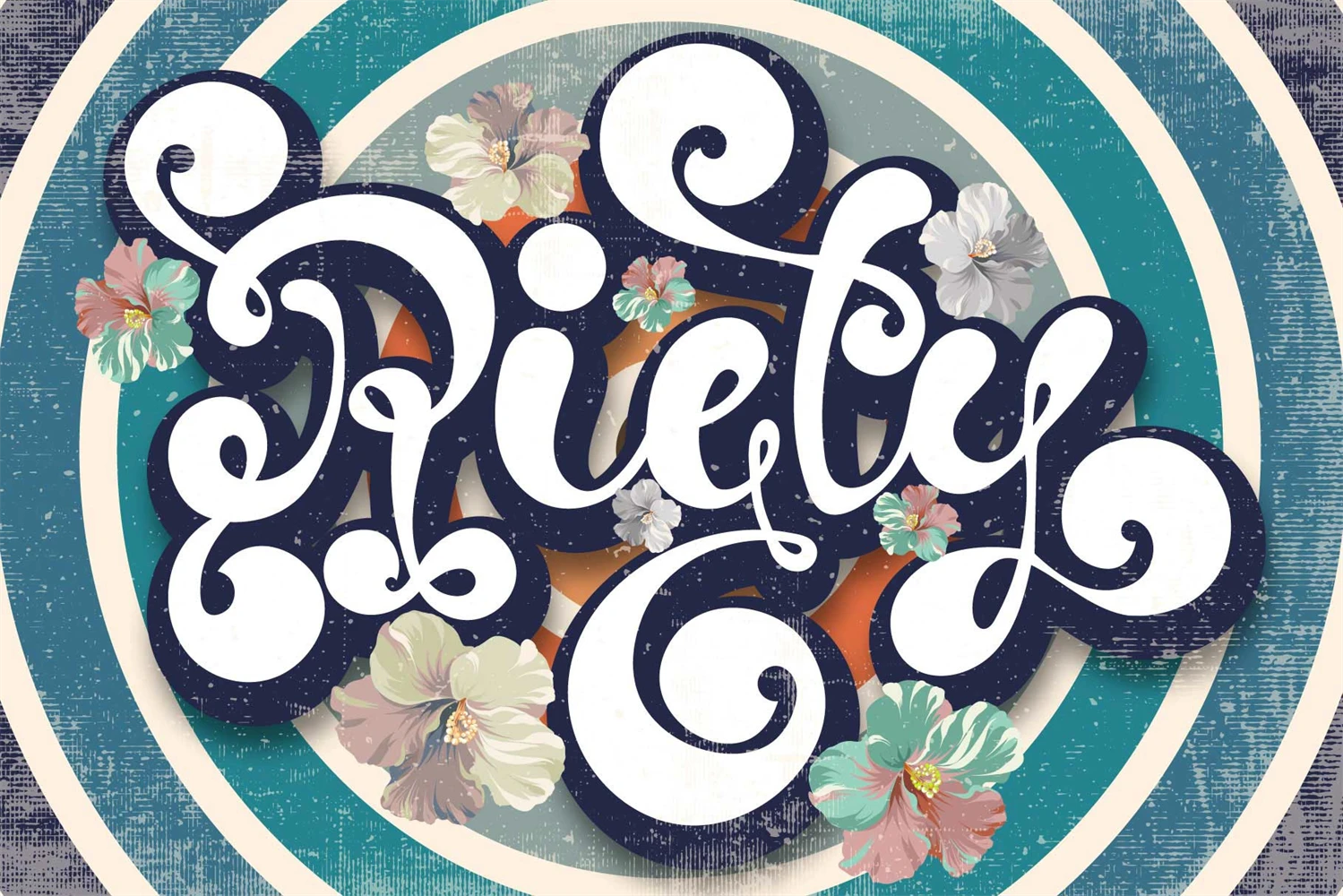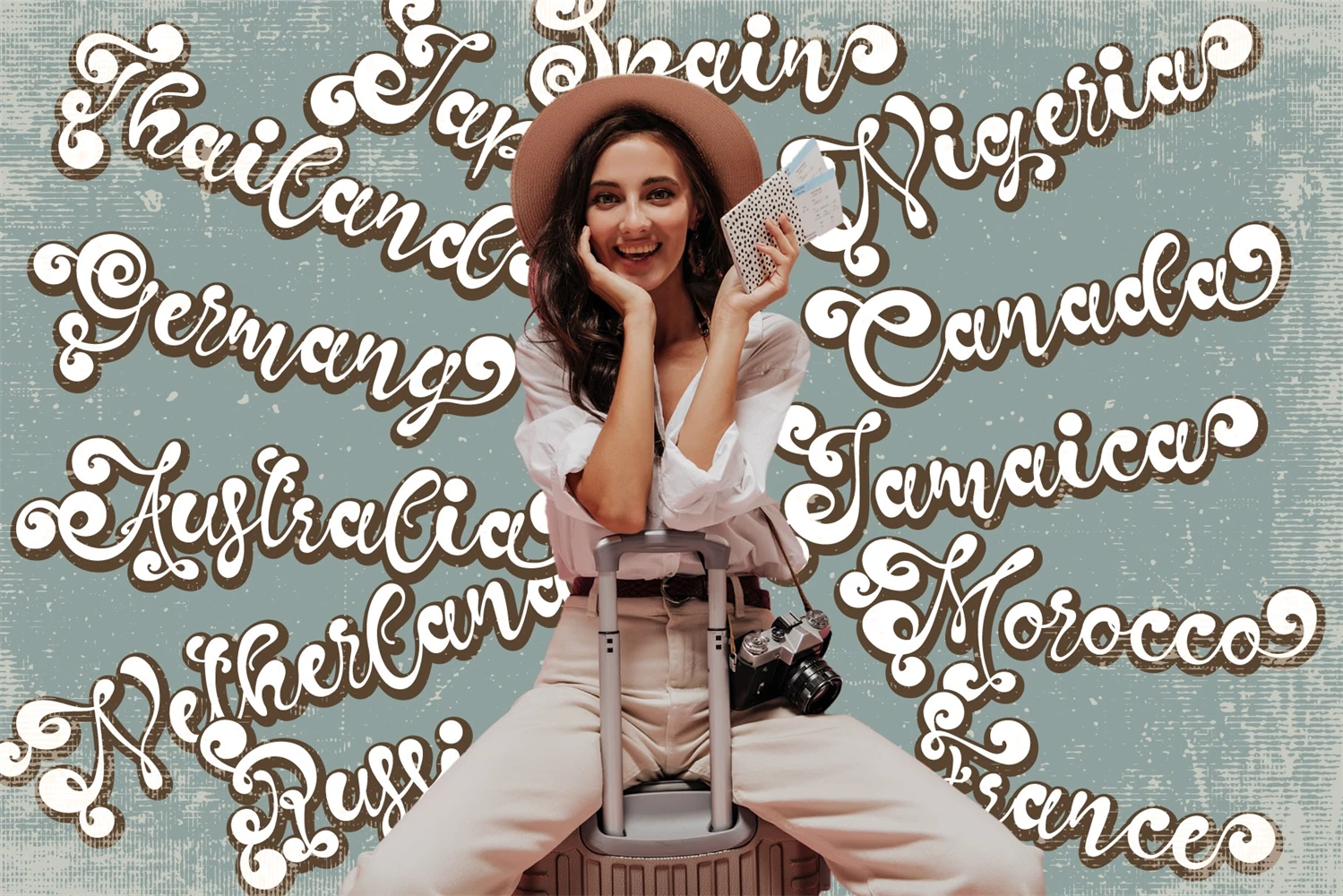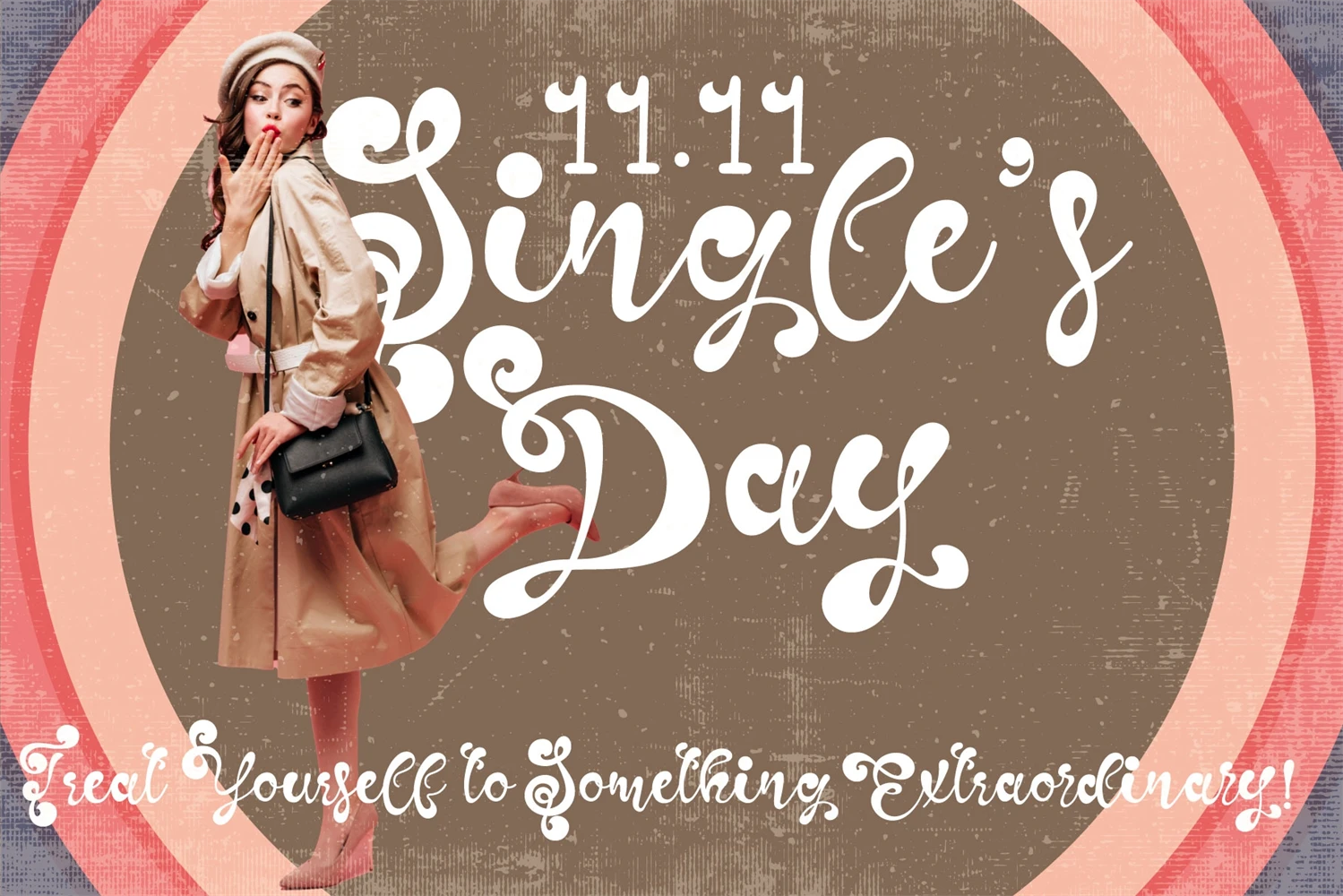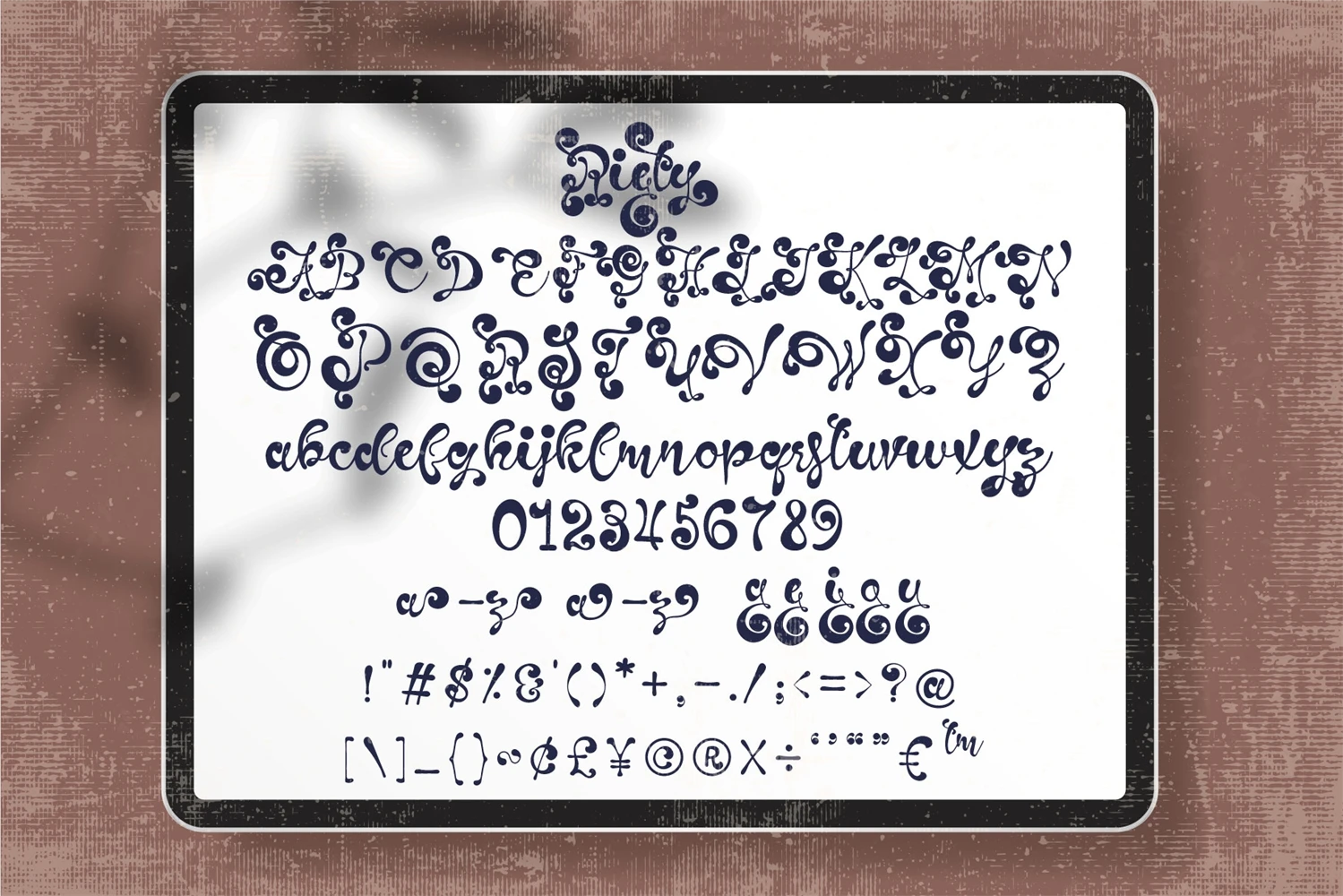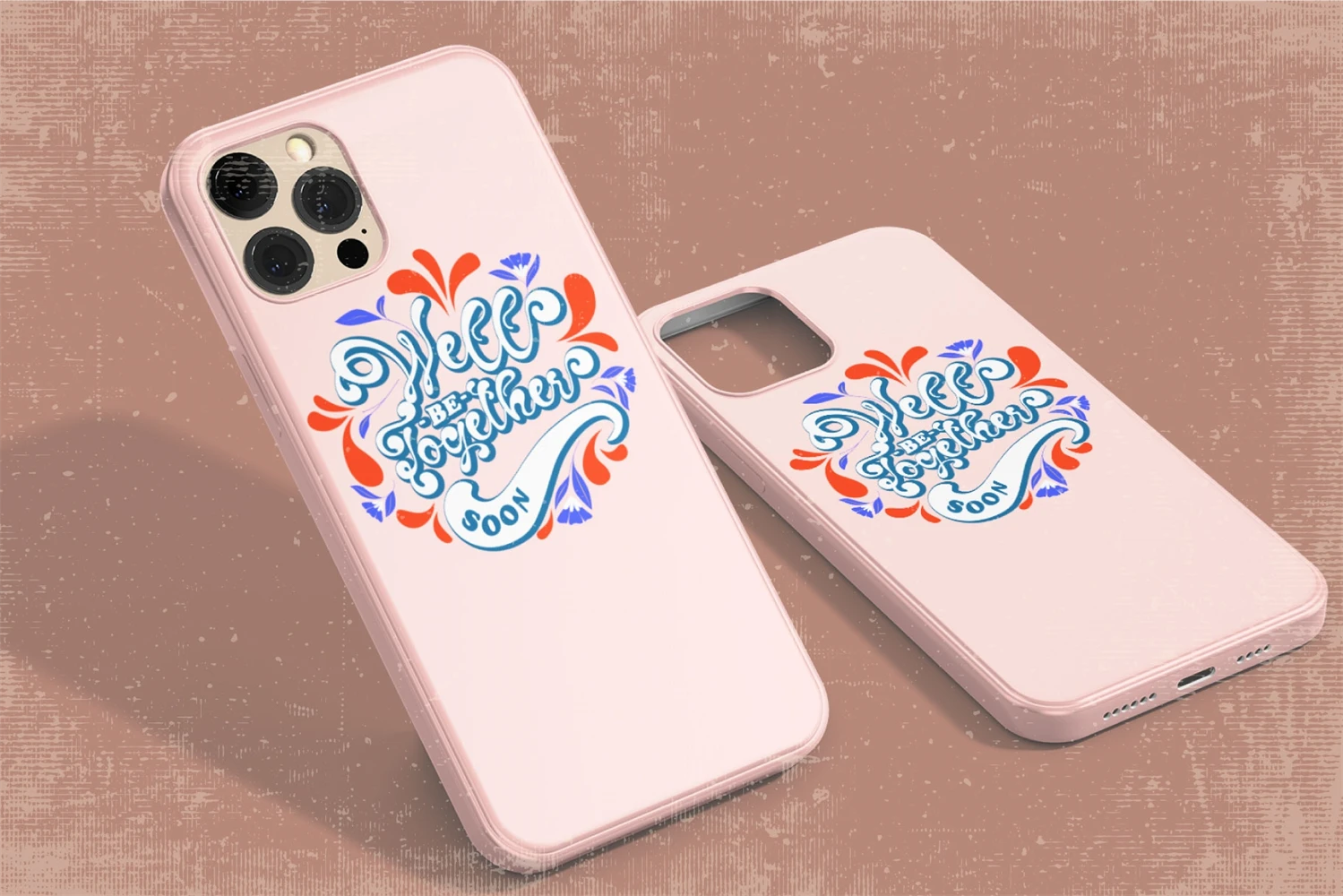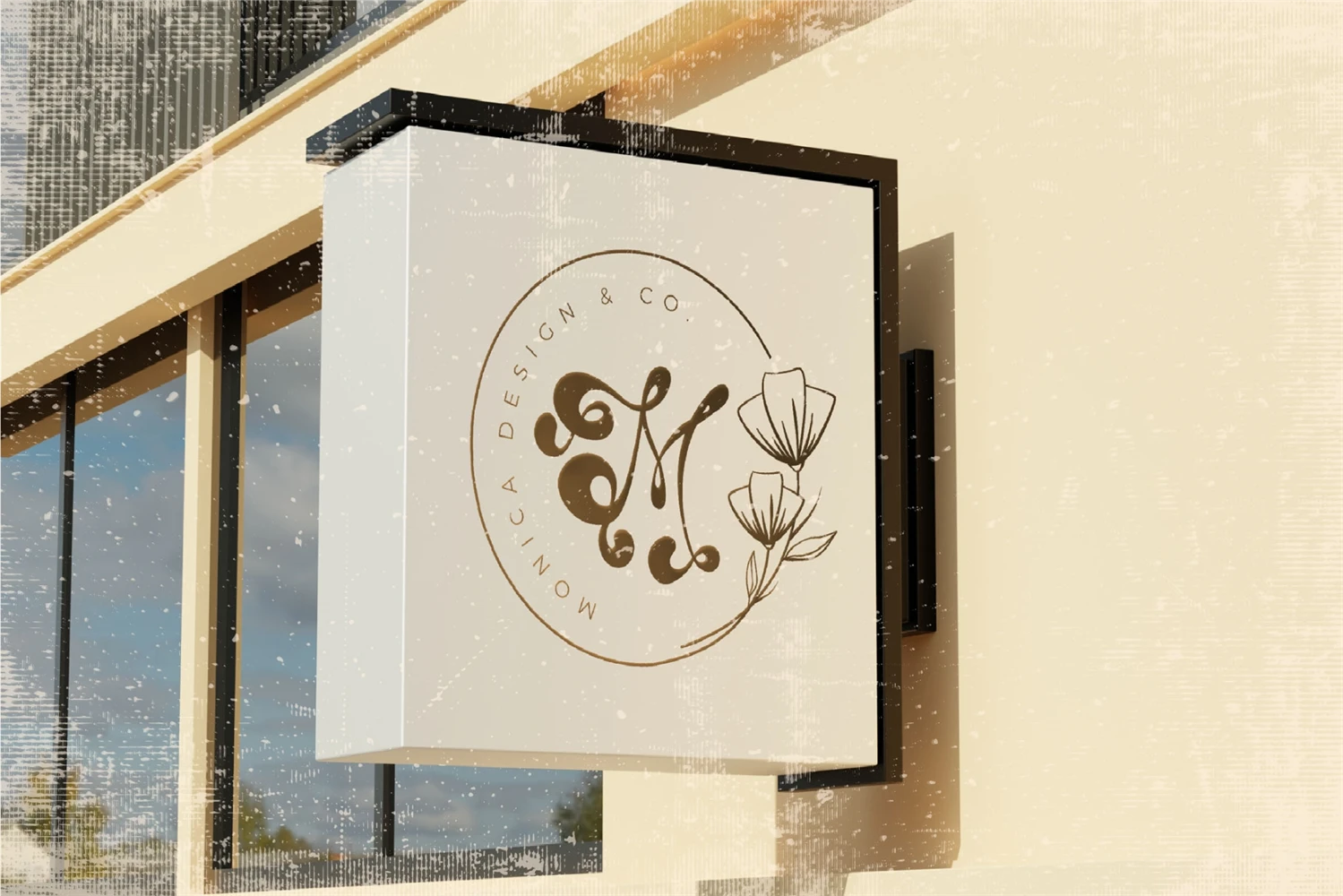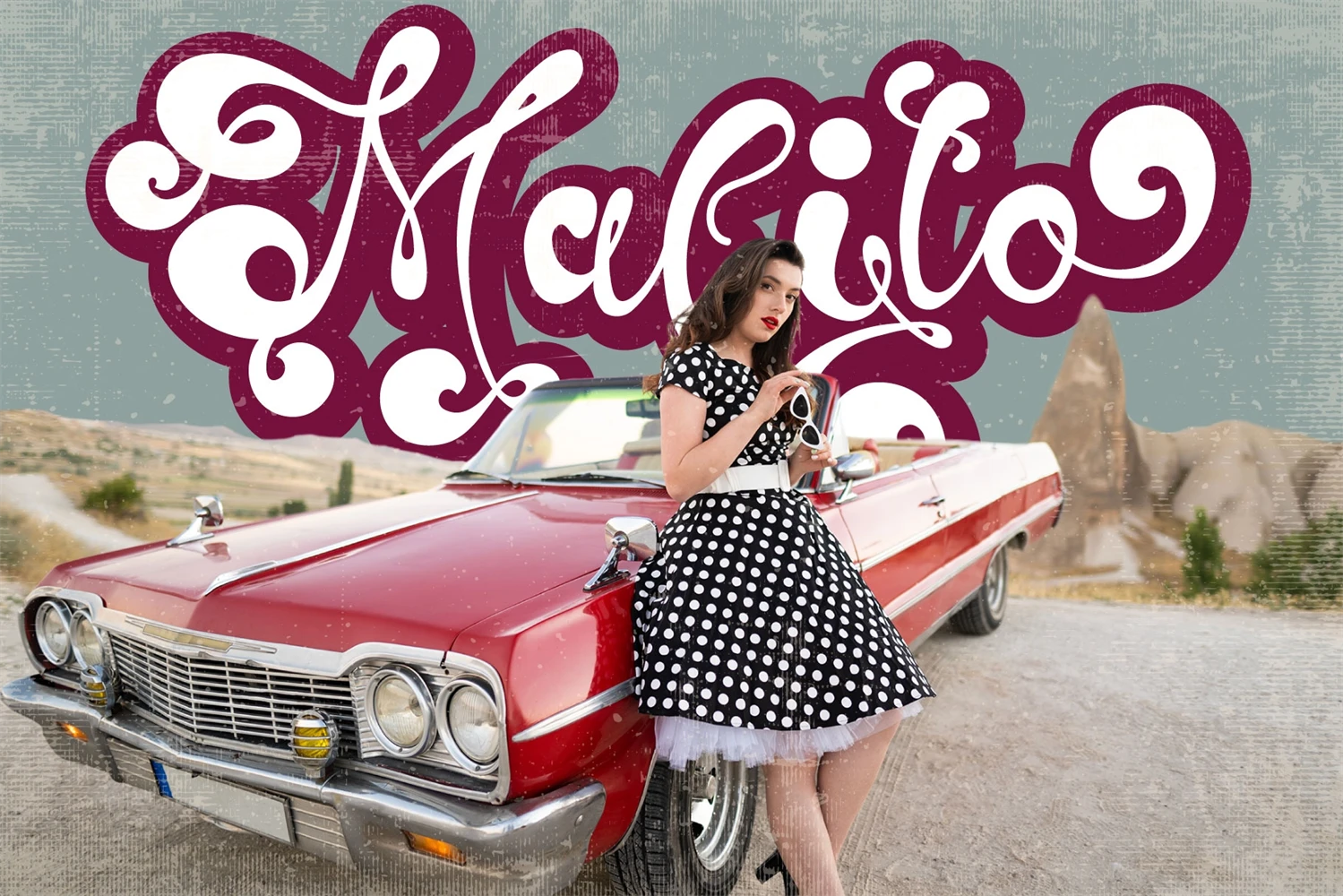
Introducing Riety Font: Where Vintage Meets Modern. This unique display font effortlessly blends the timeless charm of retro typography with a dash of contemporary flair. With its distinctive letterforms and nostalgic aesthetic, Riety Font is your passport to a world of design possibilities. Whether youre crafting vintage-inspired logos, eye-catching posters, or retro-themed branding, this font has the character and versatility to bring your creative visions to life. Elevate your projects with Riety Font and make a statement thats both classic and fresh. Unleash the power of nostalgia in your designs today!